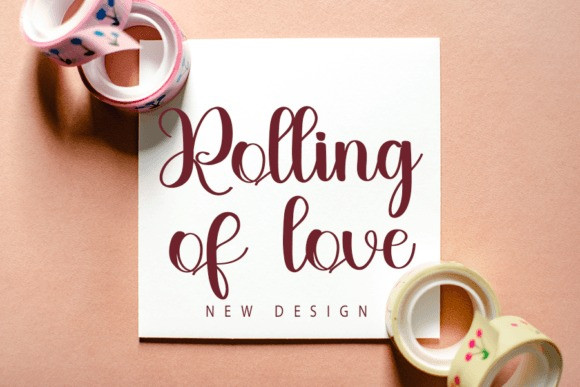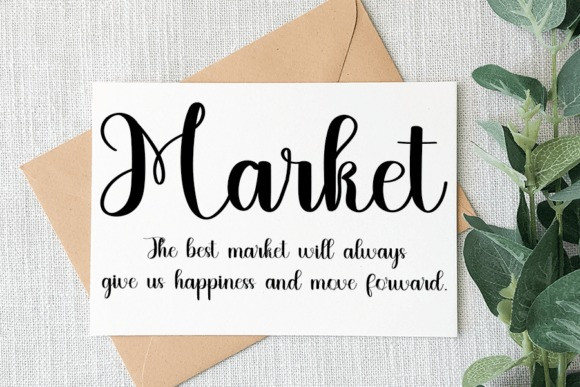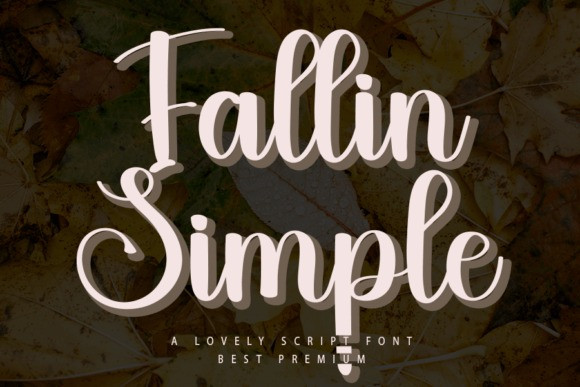
Fallin Simple Font
Fallin Simple Font is a beautiful and refined handwritten font. Classy and modern, it is perfect for logos, branding, invitations, stationery, wedding designs, social media posts, and much more!